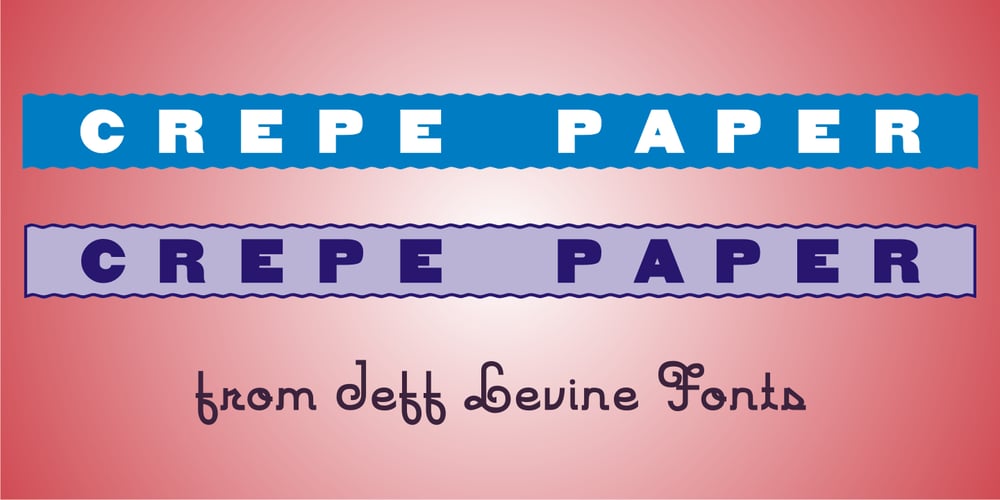
Crepe Paper JNL Font Family was designed by Jeff Levine and published by Jeff Levine. Crepe Paper JNL contains 1 styles and family package options. Crepe Paper JNL is an alphabet-only novelty font that creates a wavy ribbon headline with a vintage wood type alphabet that somewhat resembles an unfurled stretch of crepe paper. The upper case A-Z keys will produce a white ribbon banner with black letters, while the lower case a-z keys are white letters on a black background. The end caps for the white banner are on the left and right parenthesis keys, while the end caps for the black banner are on the bracket keys. A blank space is located on the period key for the white banner and on the comma key for the black banner. This will allow for a continuous text banner without an open break due to using the space key.